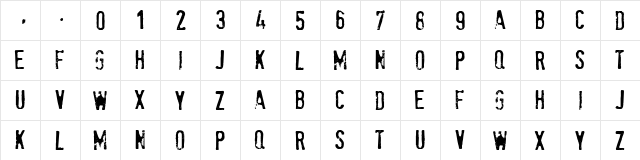
stamPete Regular
| Foundry | J O E B O B graphics |
| Designer | J O E B O B graphics |
Design Context for stamPete Typeface
stamPete borrows the utilitarian aesthetic of stencil lettering, with its characteristic cutaways and no-frills construction lending an industrial edge.
Ideal for industrial branding, streetwear, military-adjacent aesthetics, and urban signage projects.
Pro Tip: Pair stamPete with raw, utilitarian design elements — exposed concrete textures, flat colour, and minimal ornamentation suit it well.